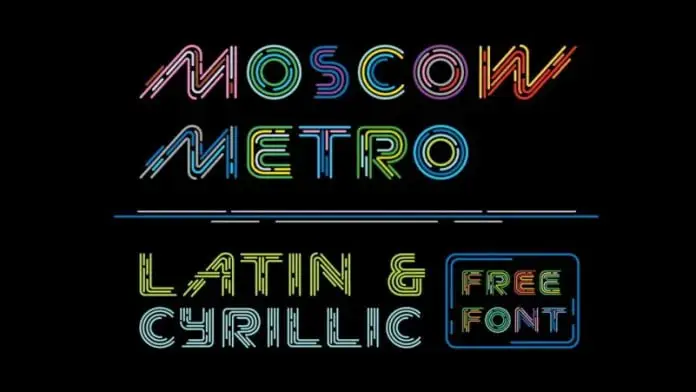
The Moscow Metro Font by Nadira Filatova is a unique typeface inspired by the iconic signage of the Moscow Metro system. This font captures the essence of urban design with its clean lines and modern aesthetic, making it a perfect choice for a variety of projects.
- Stylish and contemporary design
- Multiple weights for versatile usage
- Includes uppercase and lowercase letters, numbers, and special characters
Ideal for branding, logos, web design, and print projects, the Moscow Metro Font adds a touch of sophistication and urban flair to your designs.